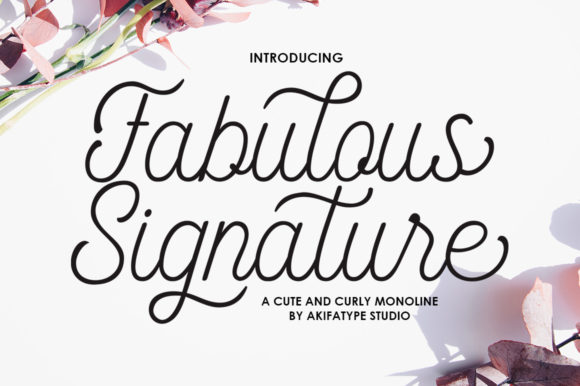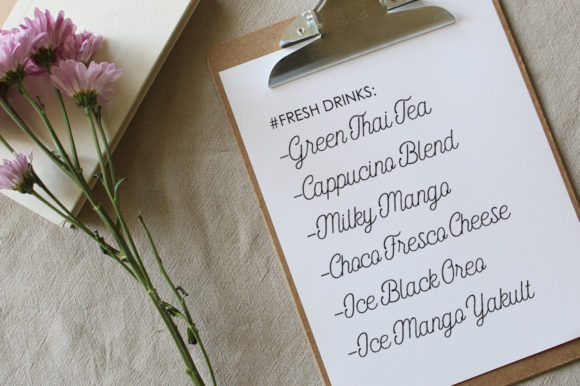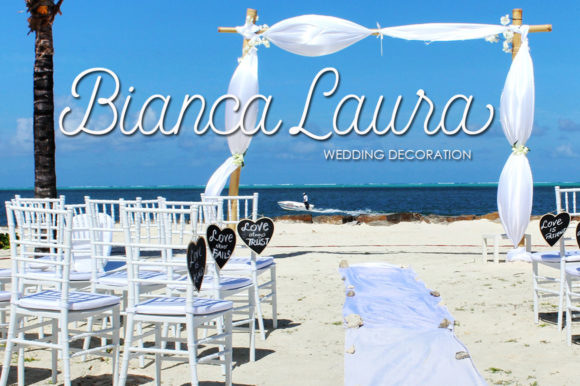
About Fabulous Signature Font
Fabulous Signature is a bold and classic handwritten font with well-rounded characters and a friendly style! With a subtle vintage touch and stylish letters, this font is a great choice for almost any creative idea! This font is PUA encoded which means you can access all of the glyphs and swashes with ease!